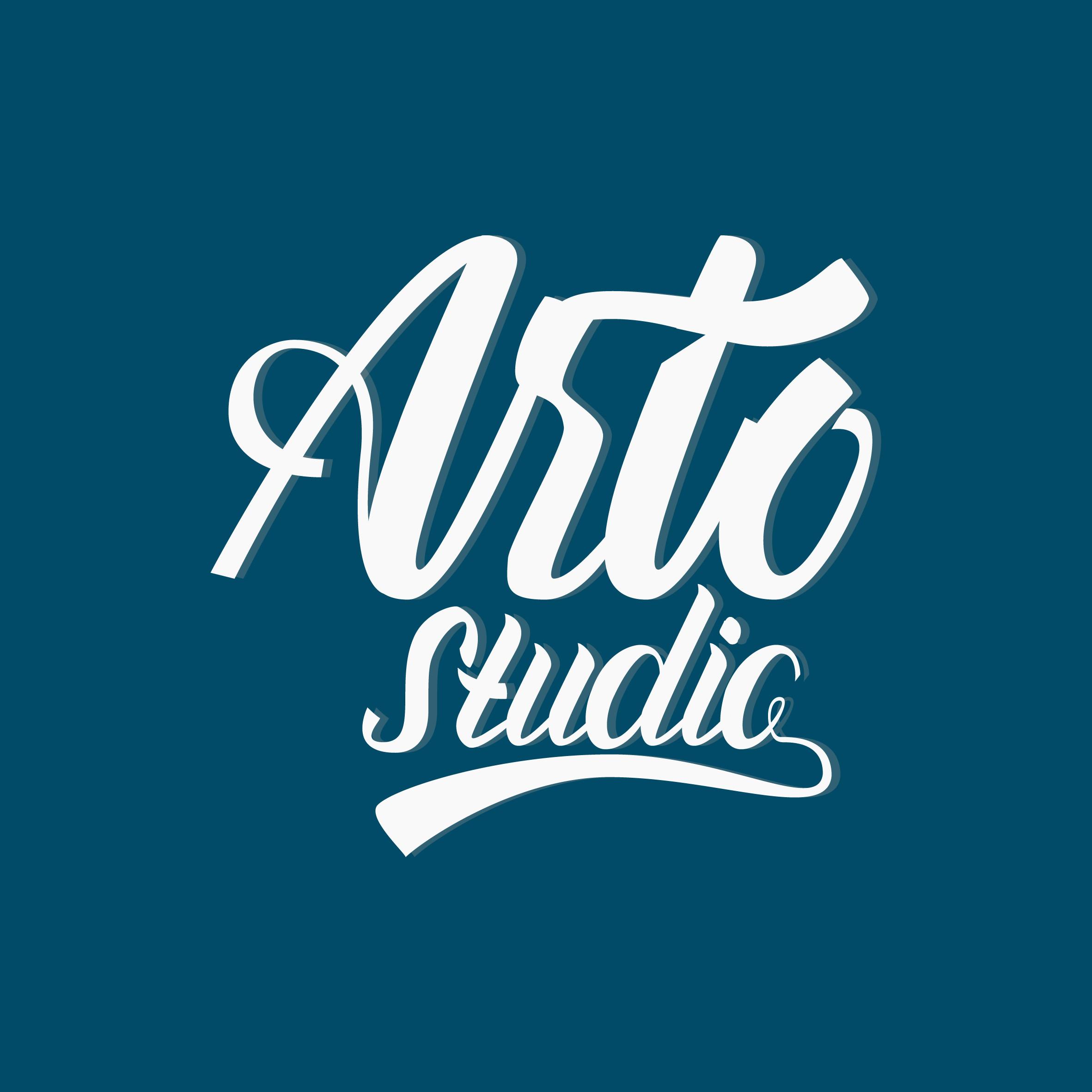
The Batlagor Font Description
The Batlagor is a beautiful display font. It has a retro feel that makes it perfect for any project that requires a vintage look! It will elevate a wide range of design projects to the highest level, be it branding, headings, wedding designs, invitations, signatures, logos, labels, and much more!